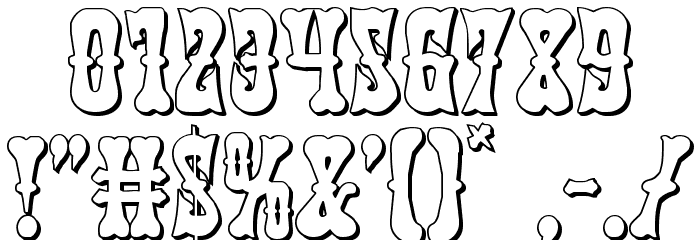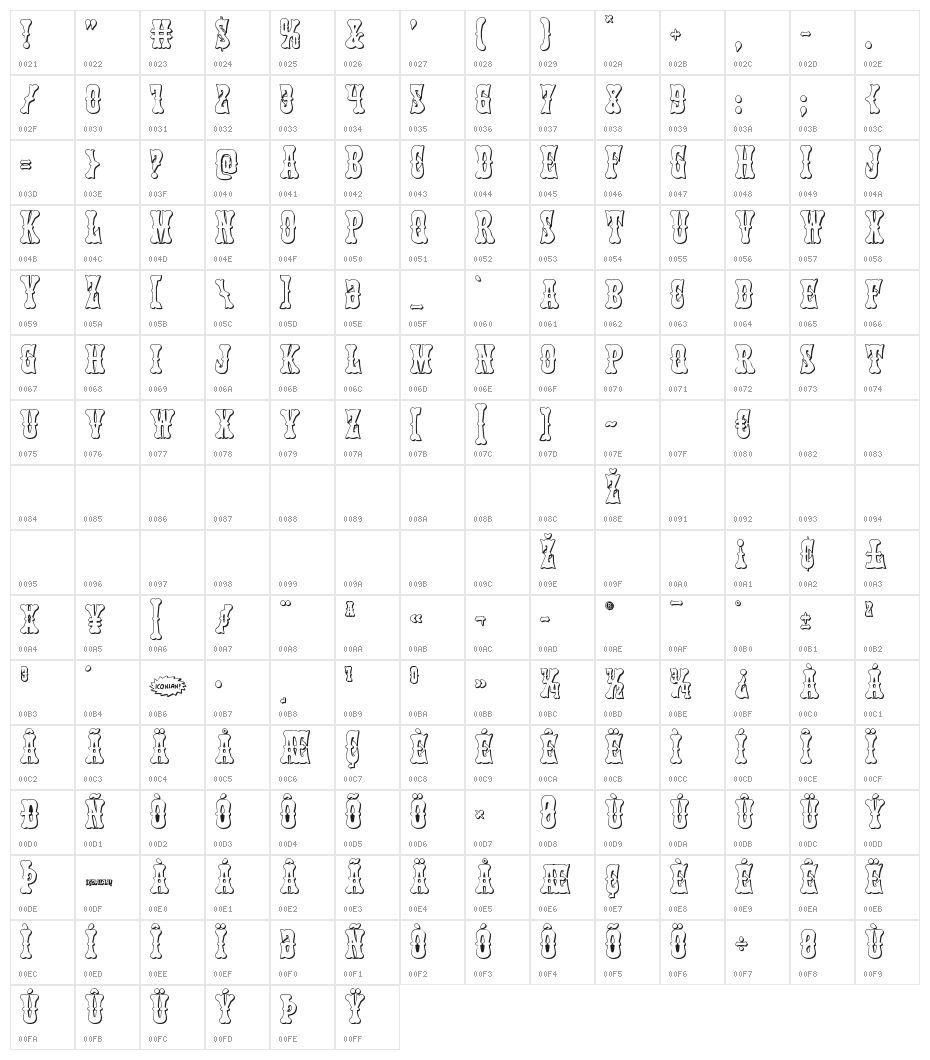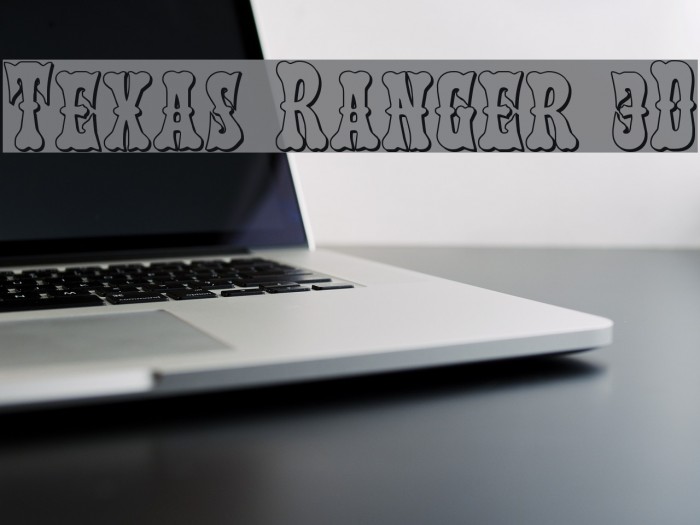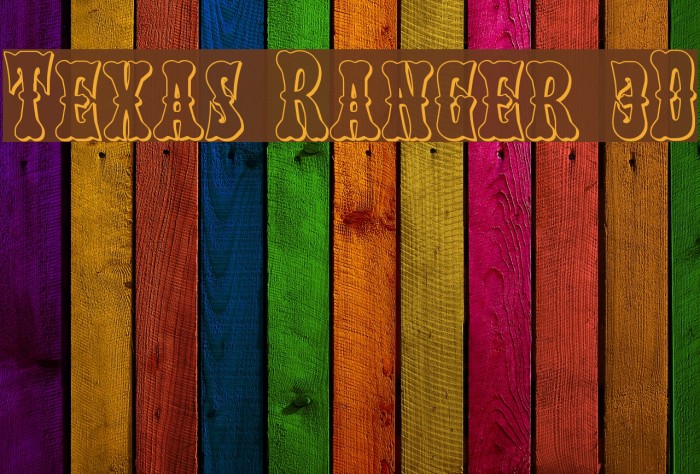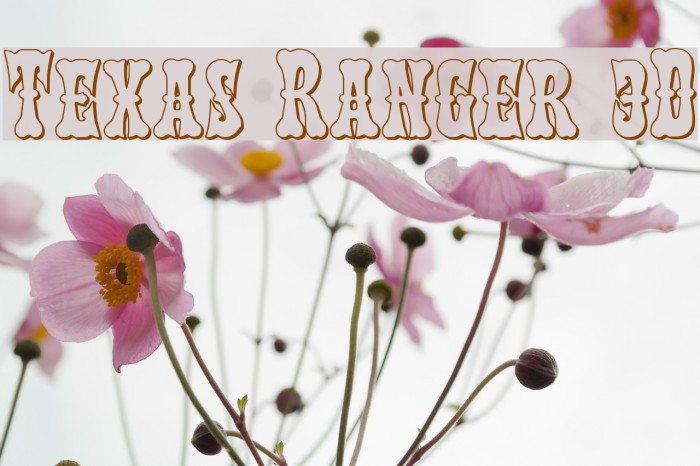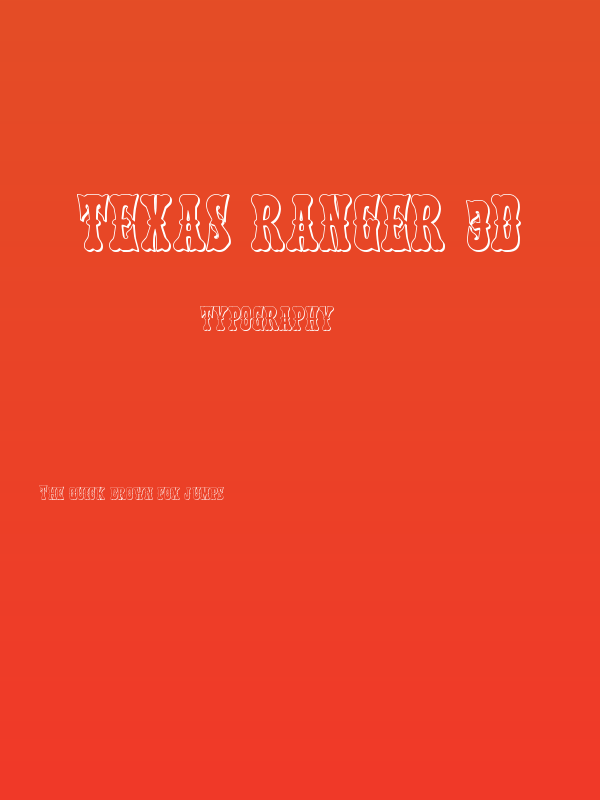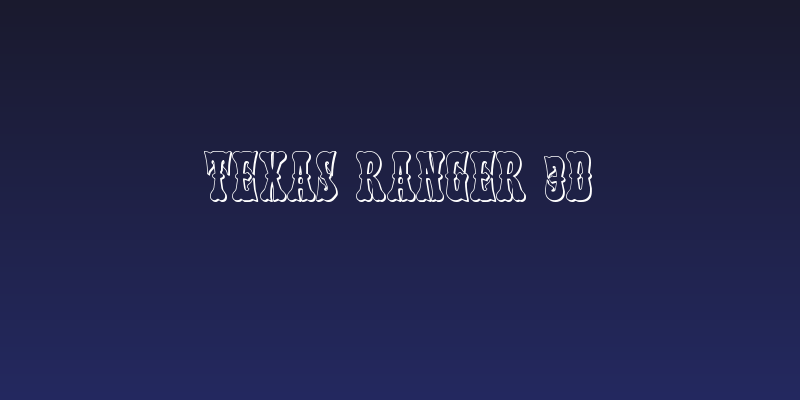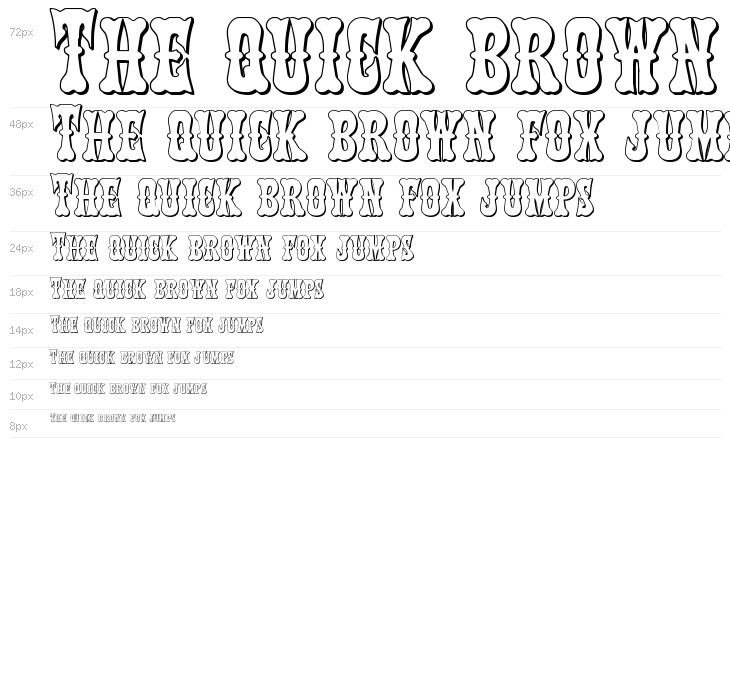
Texas Ranger 3D Font
Texas Ranger 3D Description
This font features a bold, three-dimensional style with a distinct Western flair. The characters have a strong, blocky appearance with pronounced serifs and a shadow effect that gives them depth. The design is reminiscent of old Western signage, with a playful yet rugged aesthetic. Each letter is crafted with a sense of movement and energy, making it ideal for projects that require a touch of adventure or nostalgia. The numbers and special characters maintain the same bold and dynamic style, ensuring consistency across all text elements.
| Proposed Projects | Ideal for Western-themed posters, vintage advertisements, themed event invitations, or any design needing a bold, adventurous touch. |